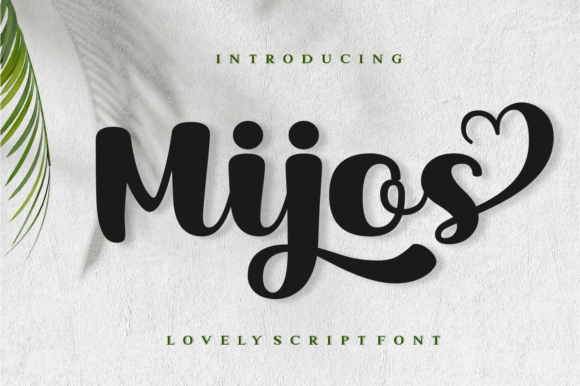
Prepare yourself to be captivated by Mijos, a script font that dances across the digital canvas with a boldness and grace that is simply breathtaking. Crafted by the talented hands of Andrian Dehasta, Mijos is more than just a font; it's an artistic masterpiece that will transform your creative projects into visual symphonies.
Unleash the boundless potential of Mijos and watch as your designs take on a life of their own. Whether you're a seasoned designer or just starting your creative journey, Mijos will elevate your work to new heights. Its meticulously crafted glyphs and ligatures dance in perfect harmony, exuding an elegance that is both timeless and utterly captivating.
Step into a world where creativity knows no bounds, where every word, every letter, every stroke of your imagination comes alive with Mijos. Its versatility knows no limits. Whether you're crafting logos that leave a lasting impression, designing social media posts that pop, or creating invitations that ooze sophistication, Mijos is your trusty companion, ready to add a touch of magic to every project you undertake.
With Mijos at your disposal, your designs will radiate an aura of sophistication and charm that will leave your audience spellbound. Its enchanting curves and effortless flow will evoke emotions, tell stories, and create connections like never before. Discover the limitless possibilities of Mijos and immerse yourself in a world where typography and artistry converge.
Don't settle for ordinary fonts that blend into the background. Embrace the extraordinary with Mijos and witness the transformation of your creative vision into a stunning reality. Let your imagination soar, let your creativity flow, and let Mijos be your guide as you embark on a journey of artistic exploration and self-expression.